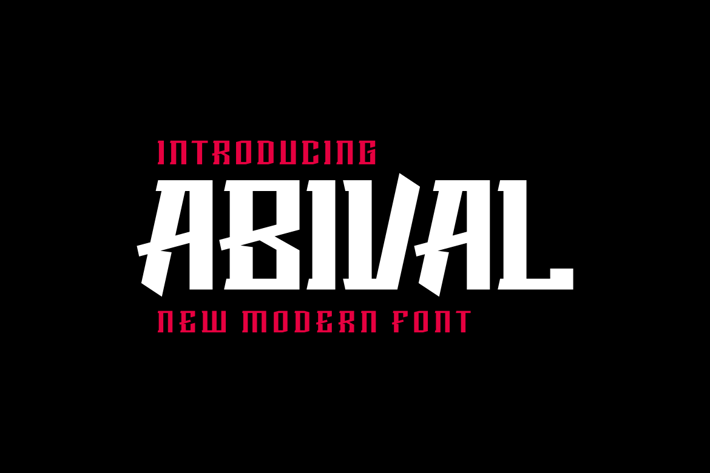
Abival Font
Introducing our new product Abival Font
Abival Font is a bold and authentic display font. The font is suitable for any branding project like logo, t-shirt printing, esport, and many more. outstanding in a wide range of contexts.